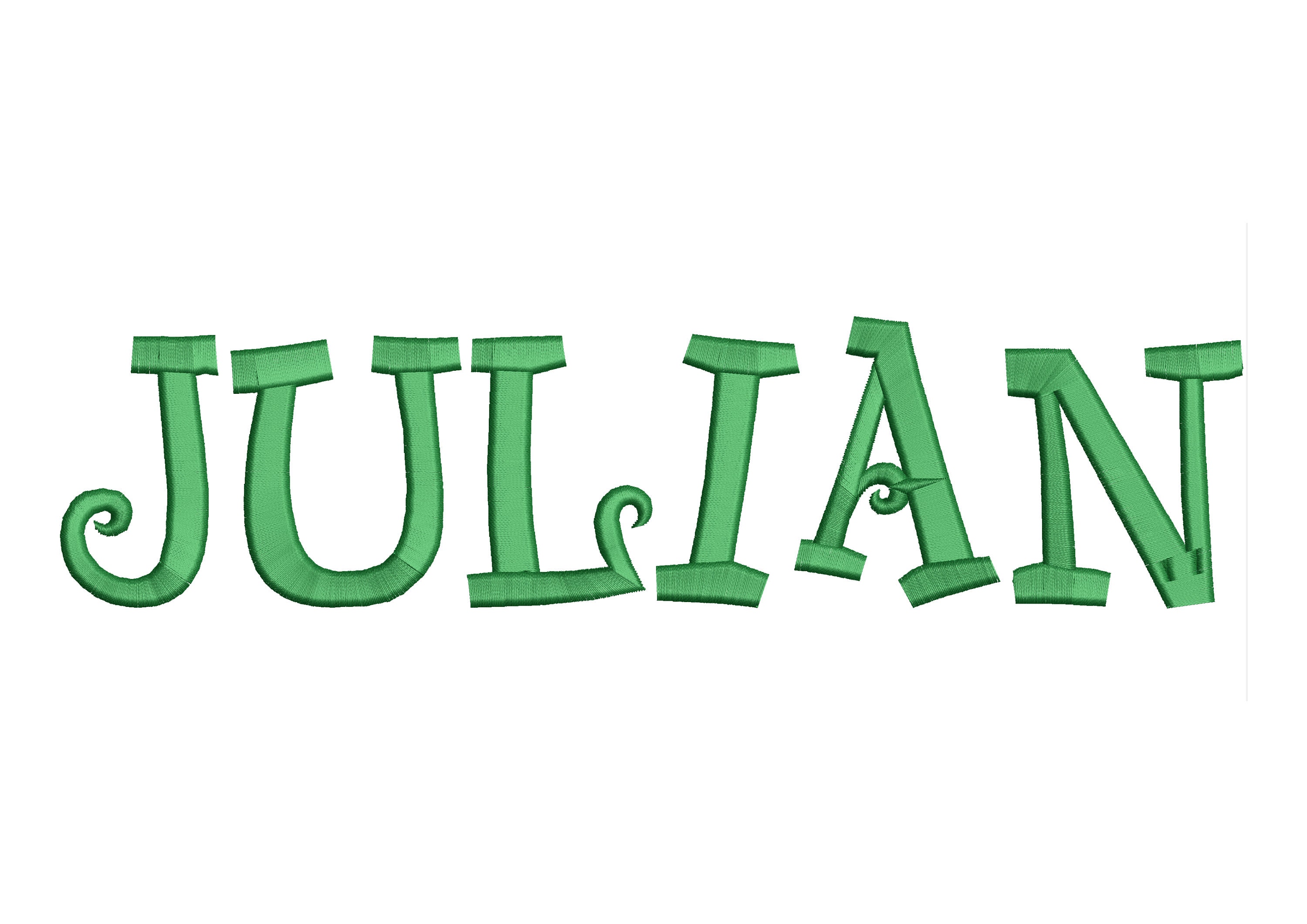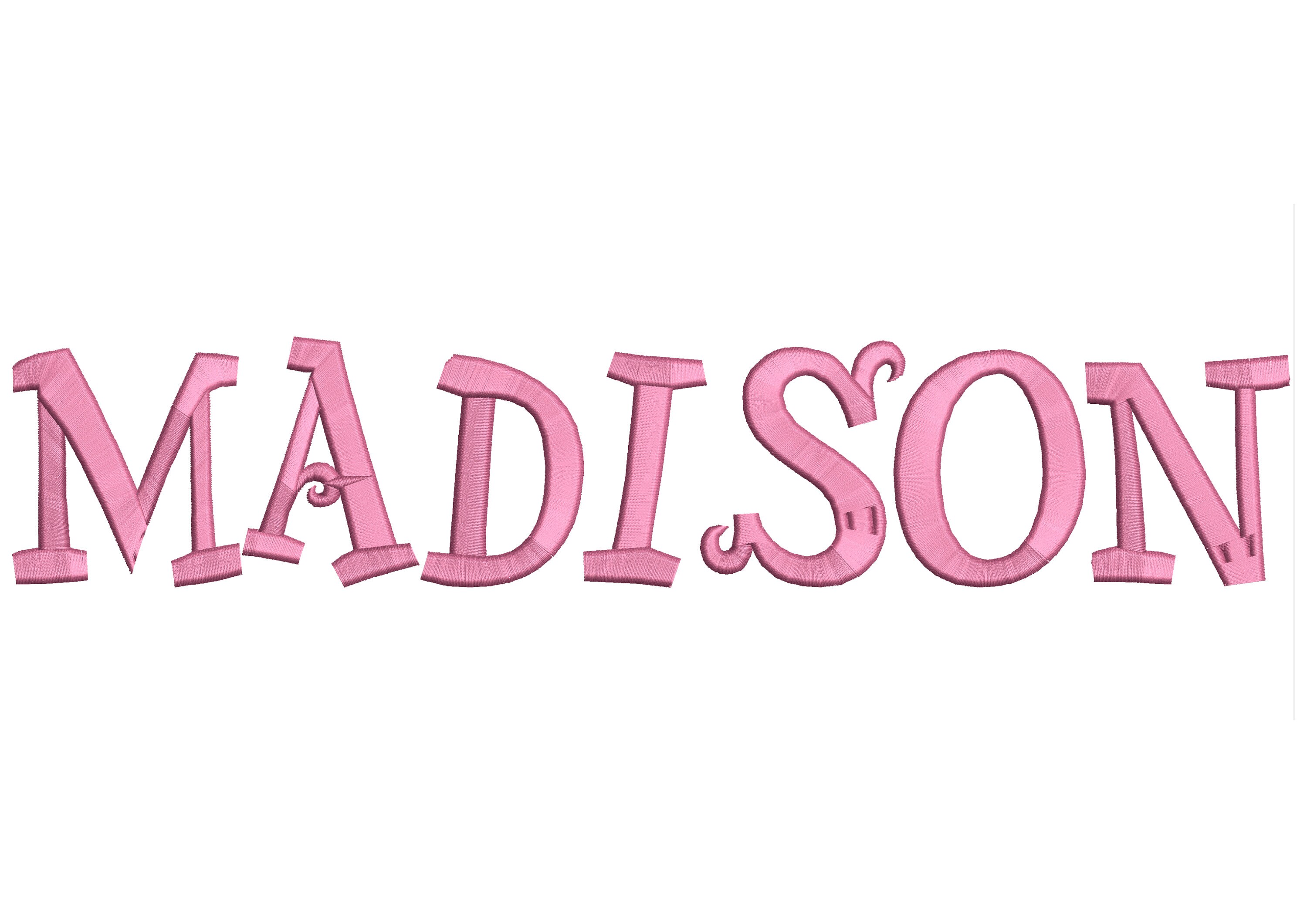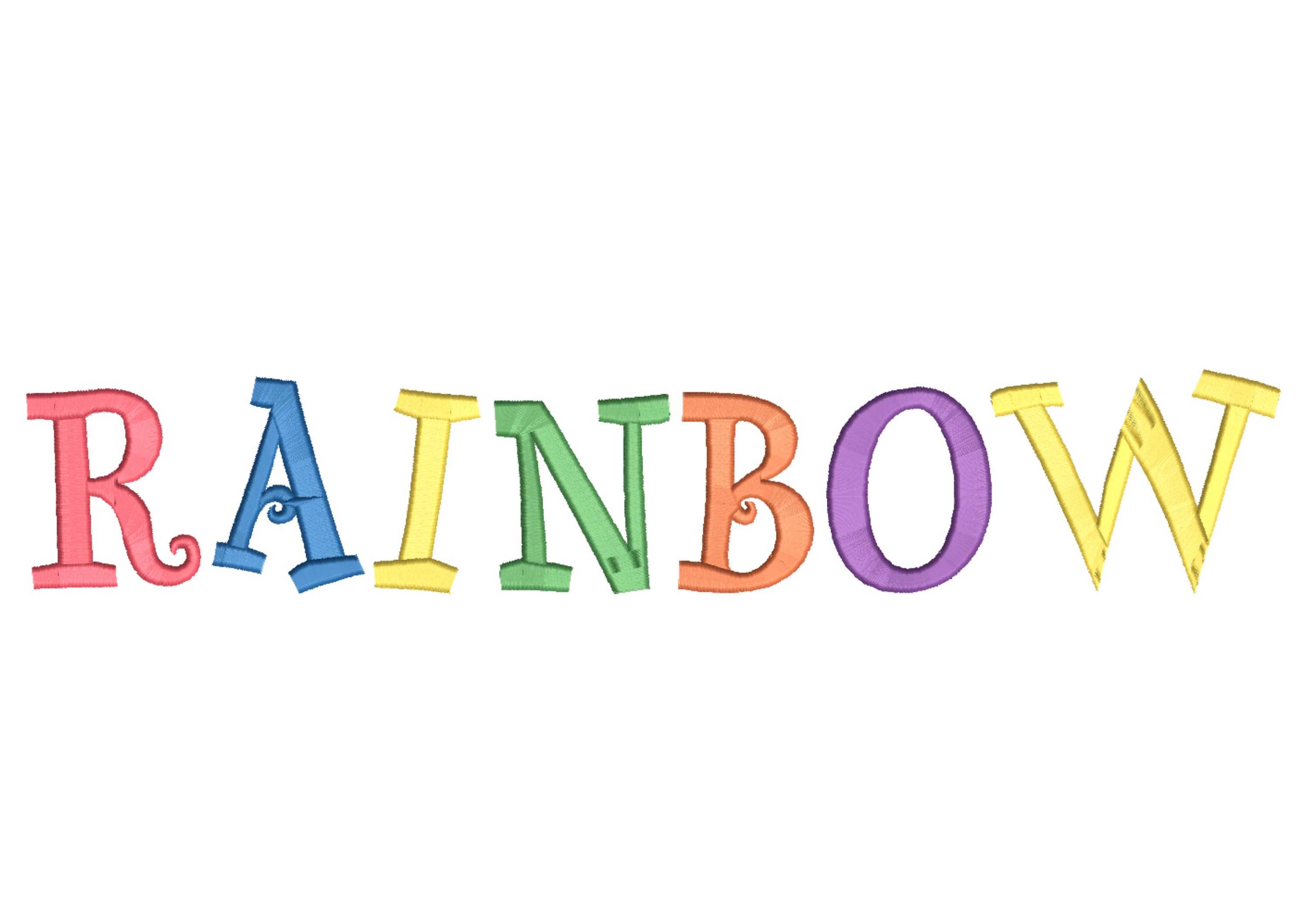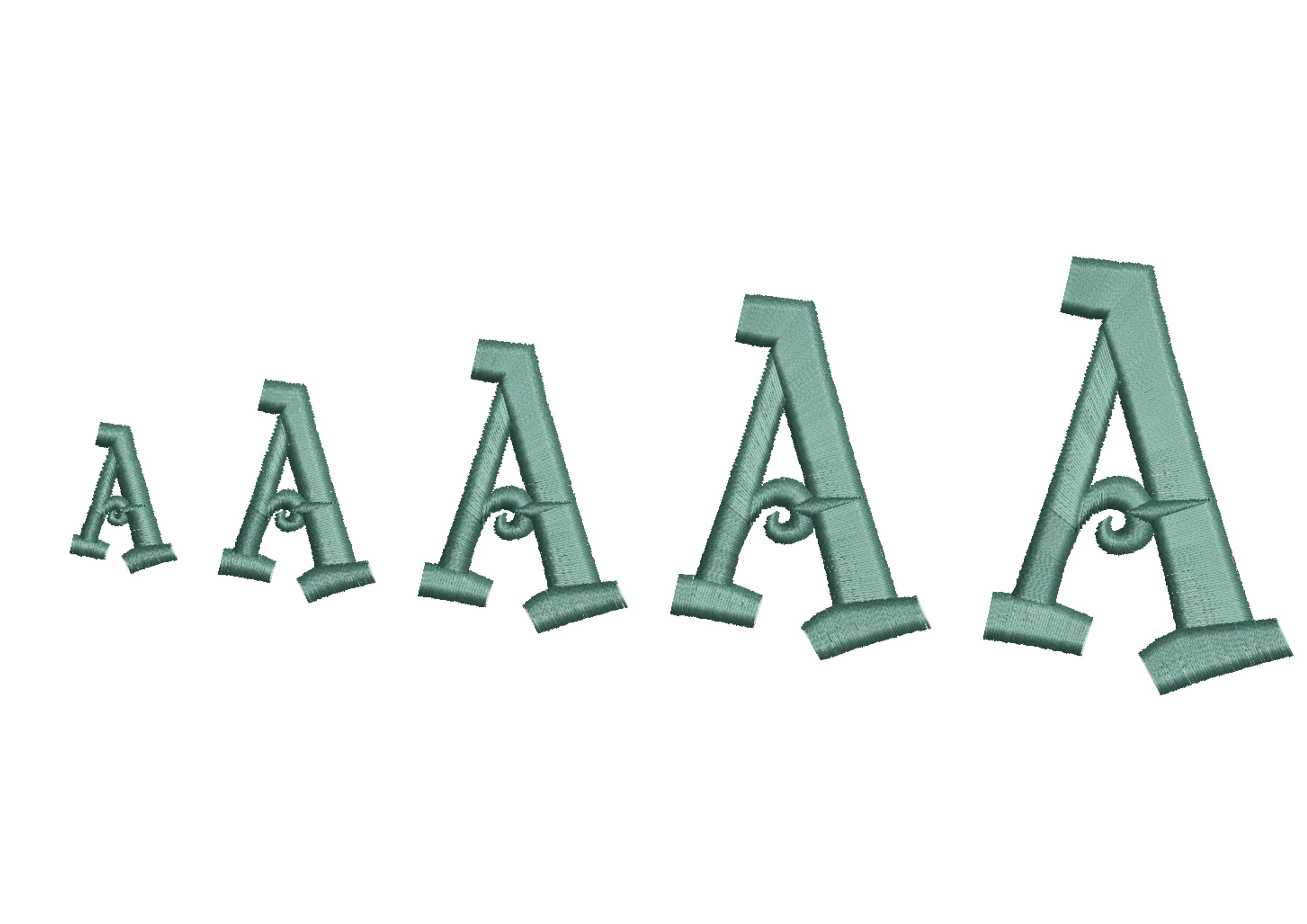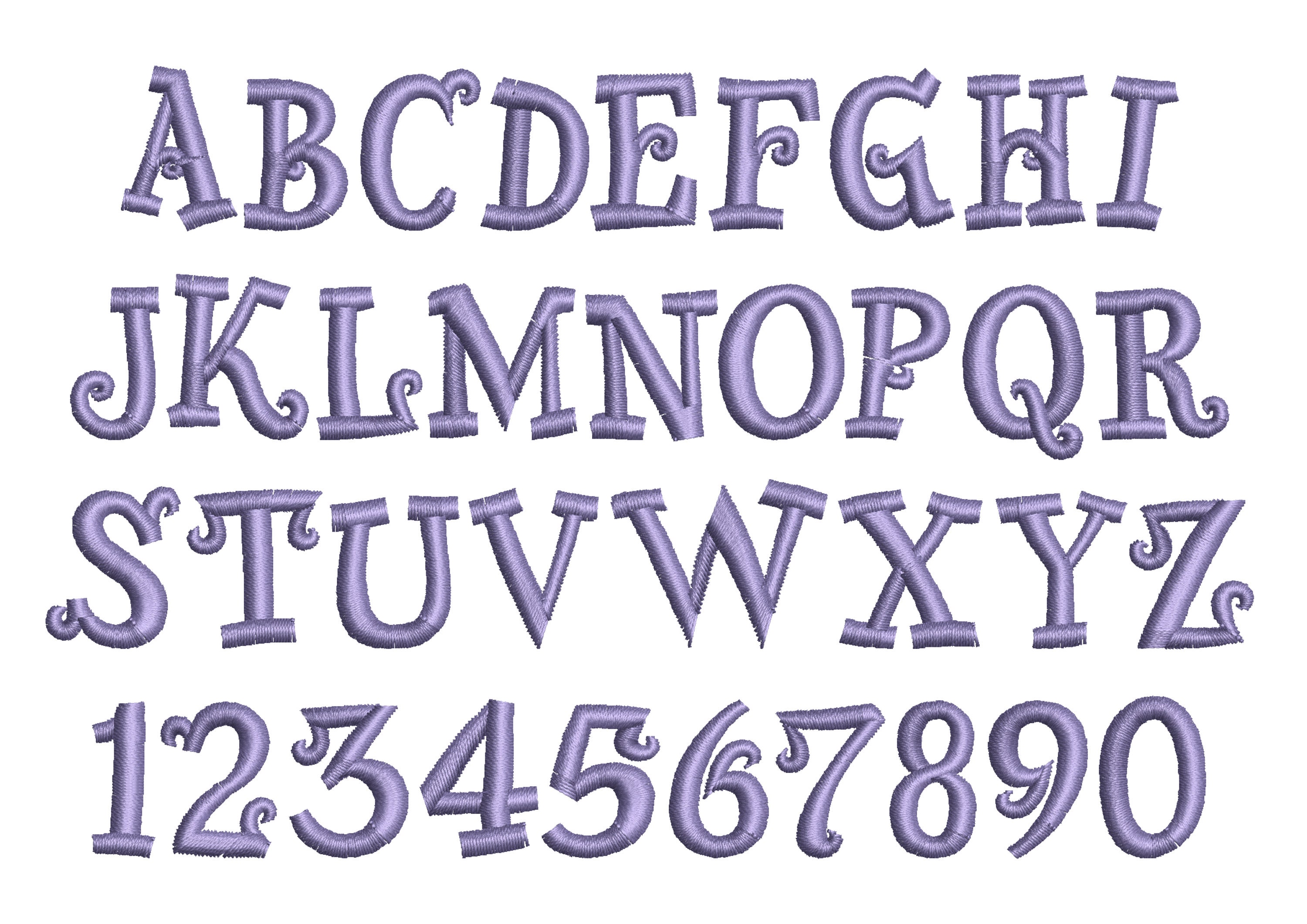
Elf Christmas stocking curls curly fancy Font alphabet machine embroidery designs sizes 0.6 thru 3.2 inches, kids name monogram BX included
Entire alphabet uppercase and numbers.